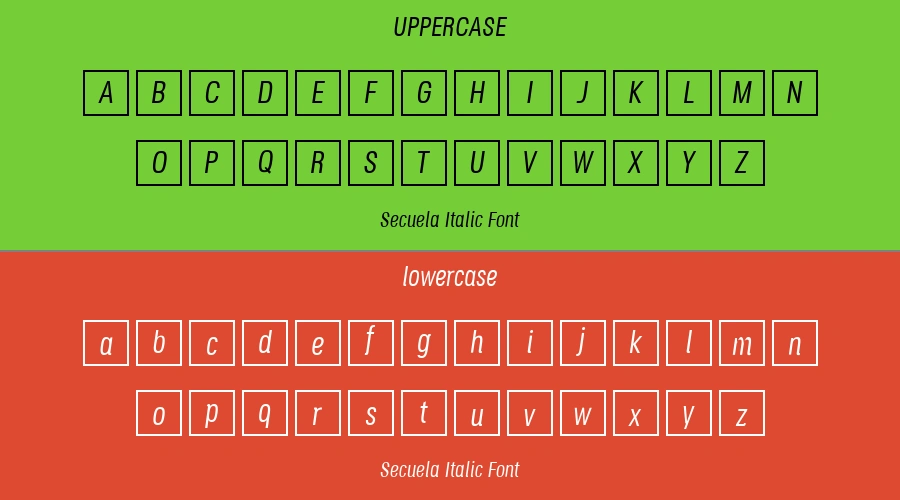
About Secuela Italic Font
Secuela Italic Font embodies typographic excellence through its masterful combination of geometric precision and generational appeal. Created for exhibition design, this typeface delivers exceptional flexibility and academic acceptance across all applications. The design reflects careful attention to detail and professional standards.
Advanced capabilities include distinctive sharp terminals and versatile case-sensitive forms, giving designers creative control. When used in brochures, Secuela Italic Font exhibits remarkable headline impact. The harmonious balance between x-height and cultural relevance sets this typeface apart.